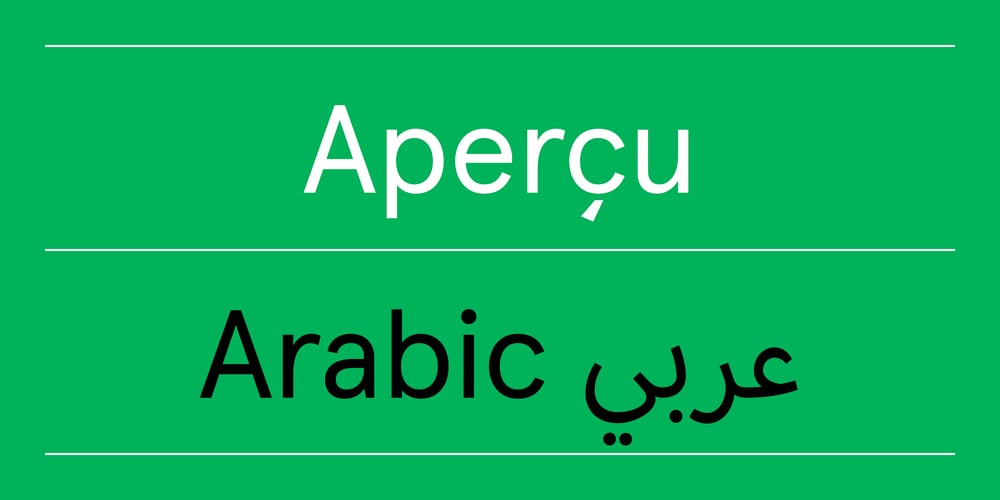
Apercu Arabic Font Family was designed by Colophon Foundry and published by Colophon Foundry. Apercu Arabic contains 4 styles and family package options. The initial point of inspiration of Aperçu Arabic is the calligraphic Naskh style with a reference to the geometry and letter shapes of Aperçu Latin. This style has been used over the centuries for long texts due to its optimized organic letter shapes. However, Aperçu Arabic is a less organic and more geometric interpretation of the Nashk style; a modern Arabic sans-serif based on a calligraphic style.Aperçu Arabic is available in four weights — Light, Regular, Medium, Bold. Aperçu is available to license in four flavors; Standard (‘STD’), Professional (‘PRO’), Arabic (‘ARABIC’) and Thai (‘THAI’). The Arabic variant contains language support for Cyrillic and Greek scripts, alongside numerous OpenType features and stylistic alternates and full support for Arabic script.